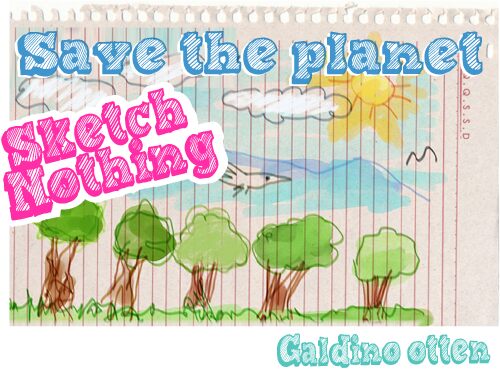
Sketch Nothing by Galdino Otten is a free comic-style 3D display font with broad, oversized slab forms and a deliberately rough hand-drawn finish. The letters lean and bulge unevenly, edged by irregular offset shadows that give the faces a chunky cutout depth. Lively diagonal scribble hatching fills each broad face.
Young audiences are a natural match for its boisterous look, making it useful on comic covers, game graphics, school-event posters, and snack packaging. Its mix of cartoon weight and notebook-style shading particularly suits children's entertainment and lighthearted youth brands.